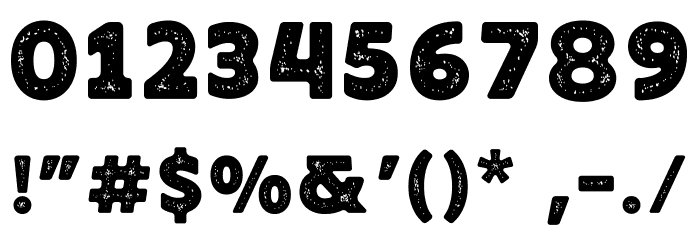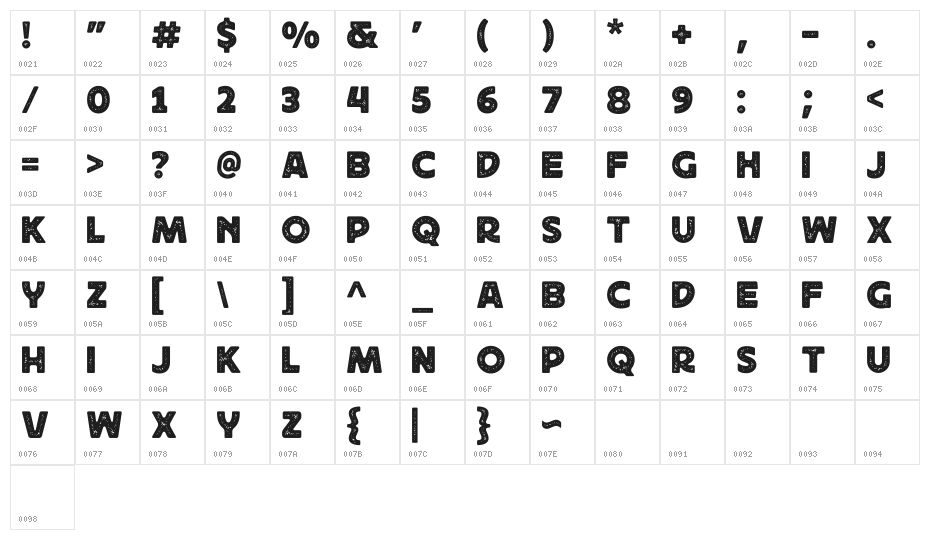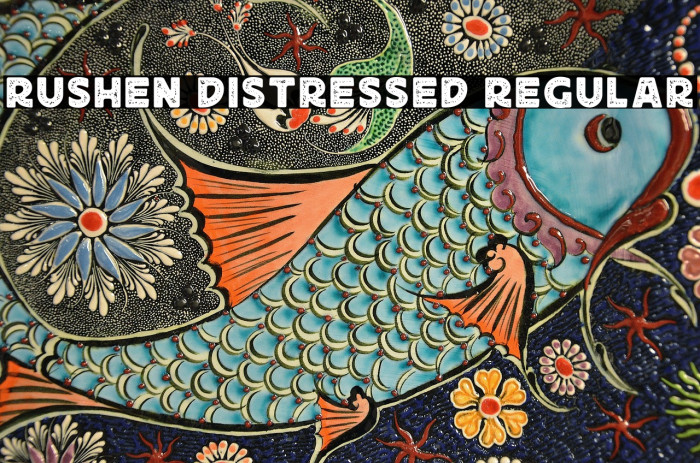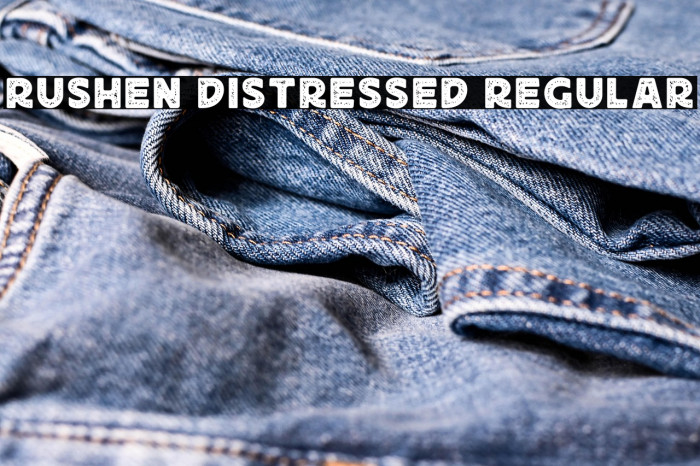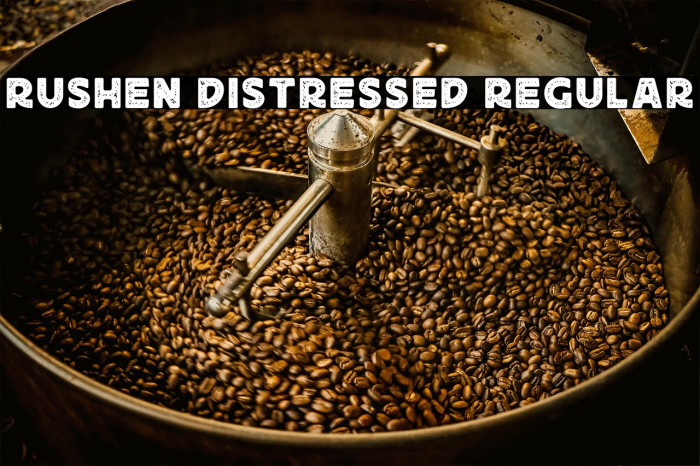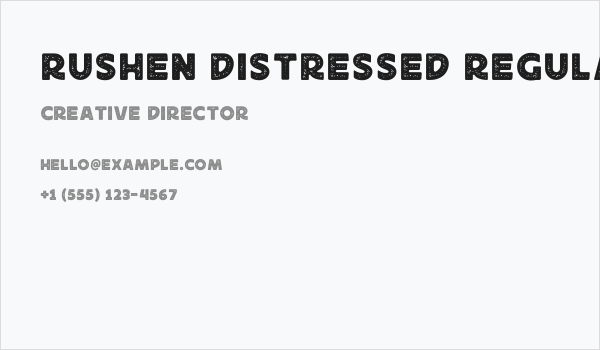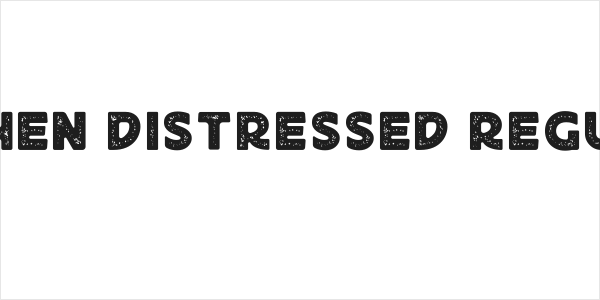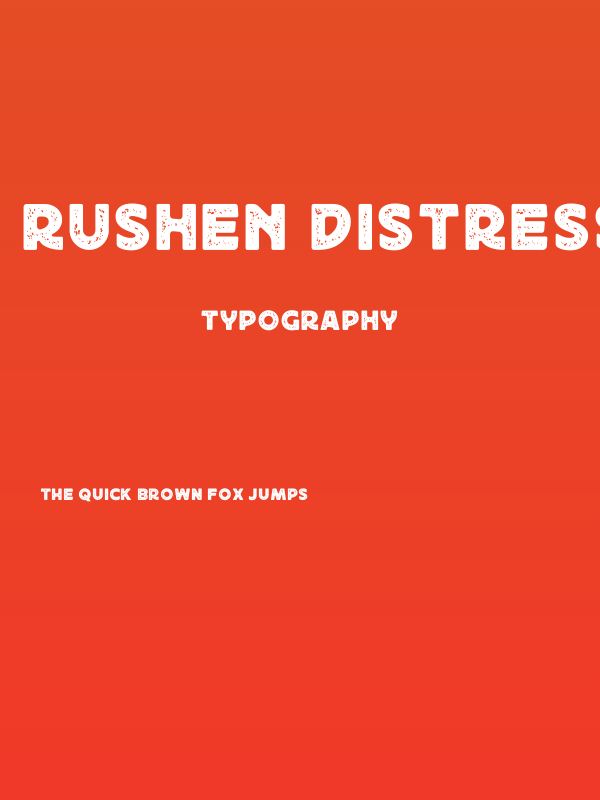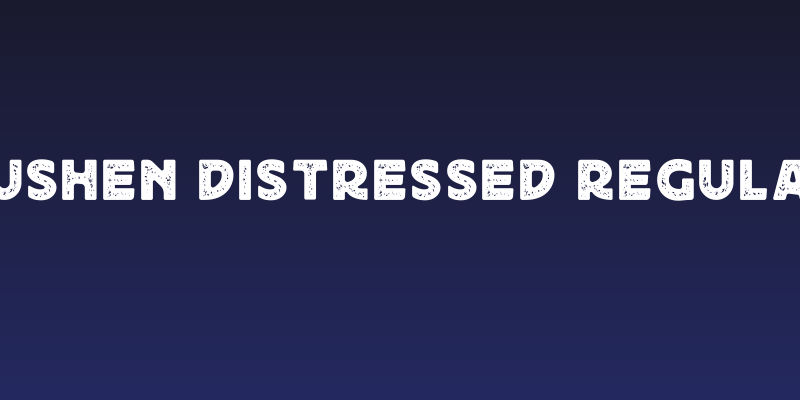
Rushen Distressed Regular Font
Rushen Distressed Regular Description
This font features a bold, distressed style with a textured appearance that gives it a rugged, vintage feel. The characters are uniformly bold with a consistent weight throughout, creating a strong visual impact. The distressed texture adds an element of depth and character, making it ideal for projects that require a rustic or worn aesthetic. The uppercase and lowercase letters maintain a uniform height, and the numbers and special characters are designed to match the overall style. This font is perfect for designs that aim to capture a sense of nostalgia or a handcrafted look.
| Proposed Projects | Ideal for vintage posters, rustic branding, apparel design, and signage. |